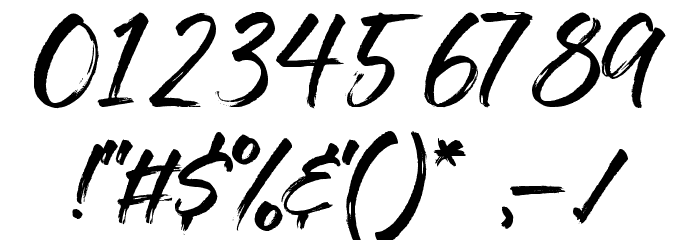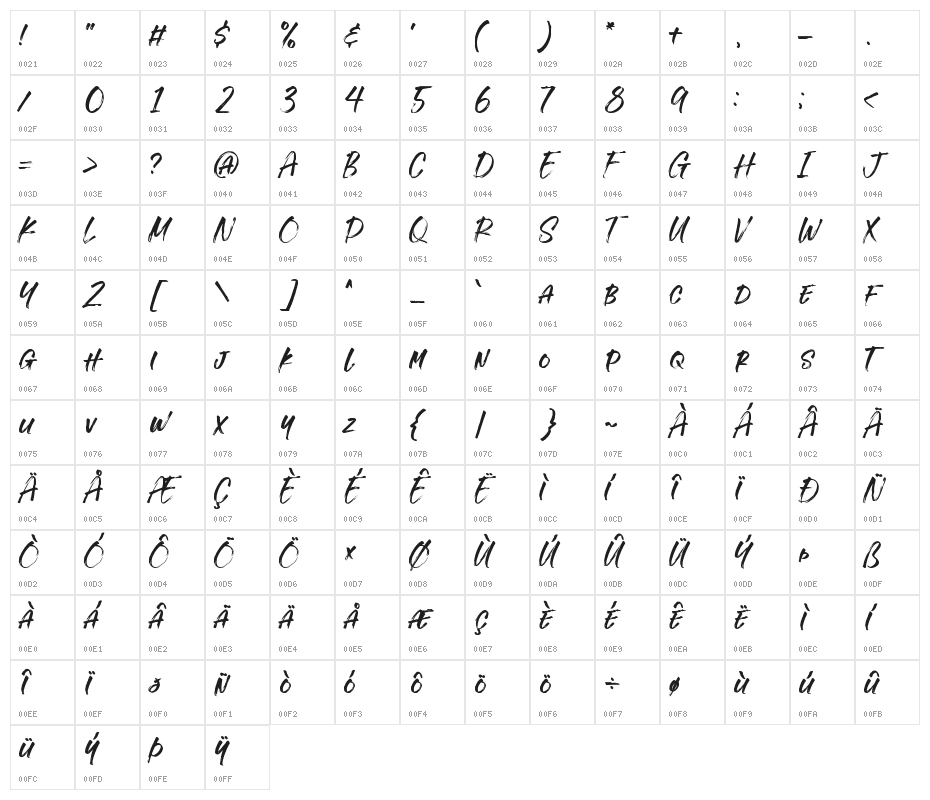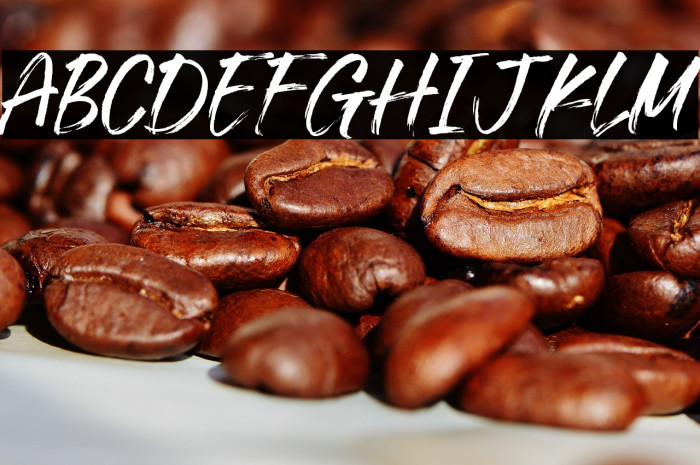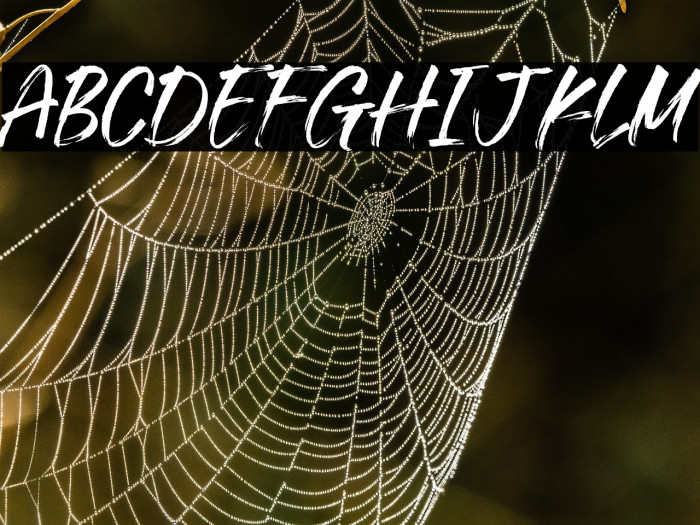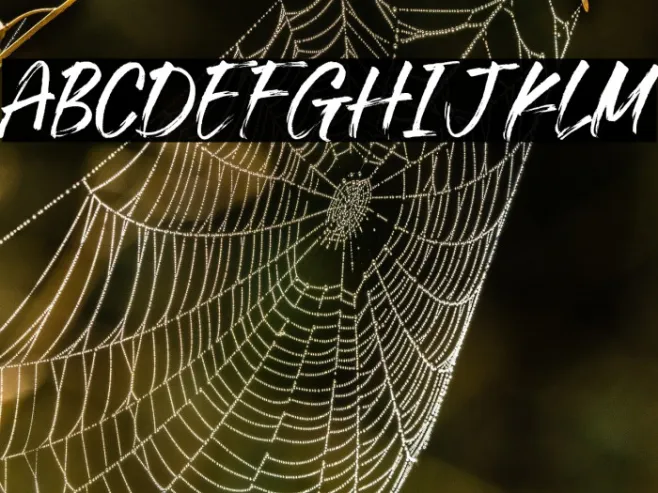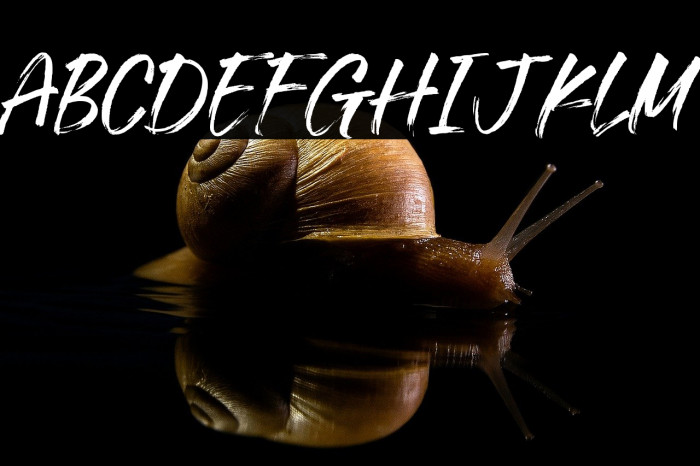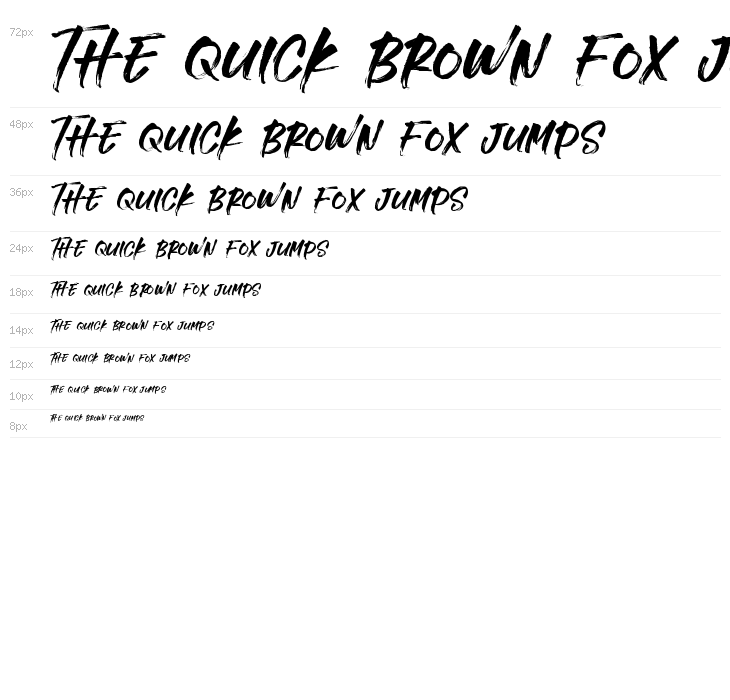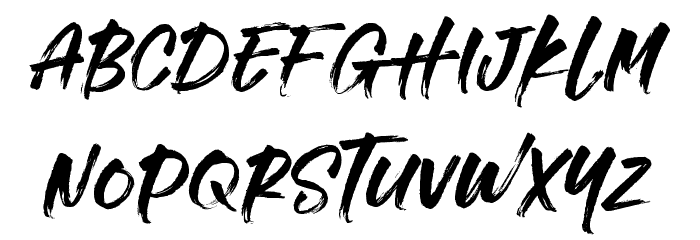
Crowtig Font
Crowtig Description
This font exudes a bold and dynamic energy, characterized by its brush-like strokes and fluid motion. The letters are crafted with a sense of spontaneity, giving them a handwritten appearance that is both artistic and expressive. The uppercase and lowercase letters maintain a consistent style, with each character exhibiting unique variations that add to the overall charm. The numbers and special characters follow the same stylistic approach, ensuring a cohesive look across all elements. The font's design is perfect for projects that require a personal touch, such as invitations, posters, or branding materials. Its bold presence makes it ideal for headlines or any application where a strong visual impact is desired.